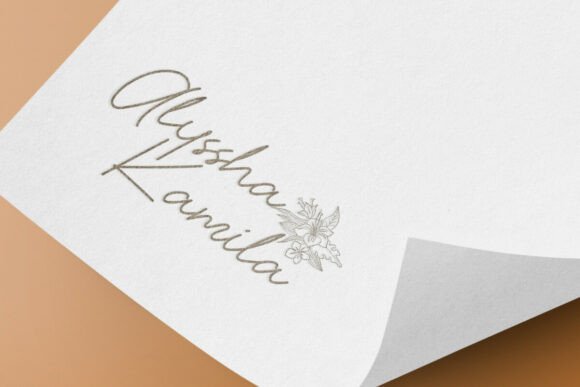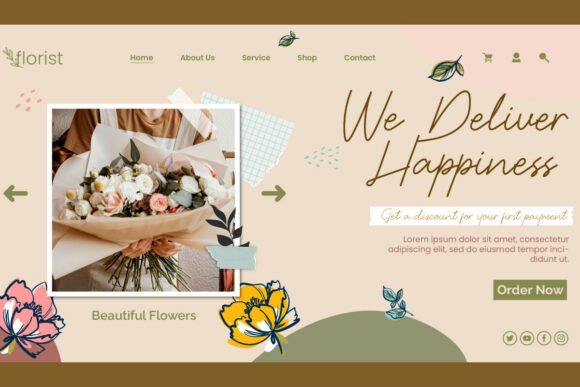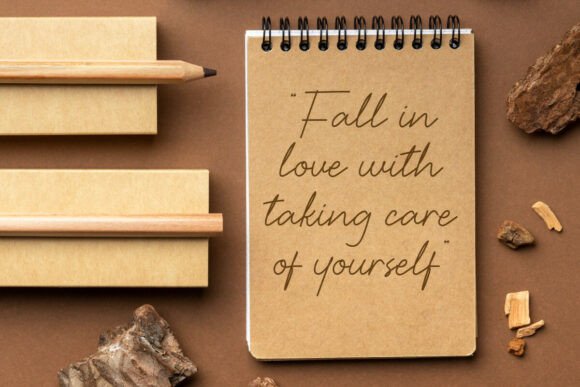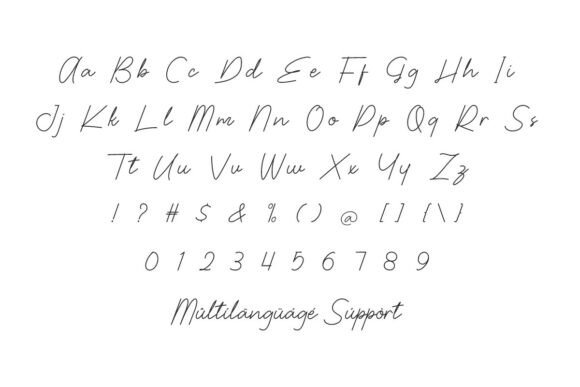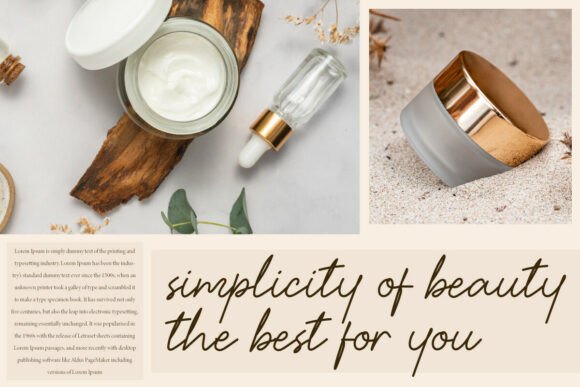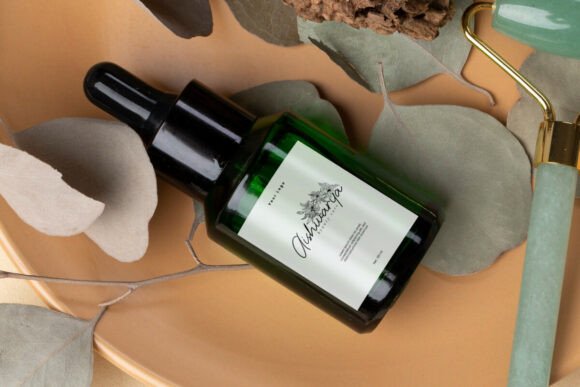
Introduction to Katanya Sendiri Font
Katanya Sendiri Font is a simple and elegant handwritten font that adds a sweet human touch to more elevated designs.
This font represents the intersection of style and functionality, with a focus on impeccable design and attention to detail Perfect for blogs, card design, cover, flyer, label, logos, printed materials, product packaging, quotes, stickers, titles, watermarks, website, and more.
Katanya Sendiri Font offers exceptional quality and versatility, making it a valuable addition to your design toolkit. Whether you’re creating for personal projects or commercial use, Katanya Sendiri Font delivers professional results.